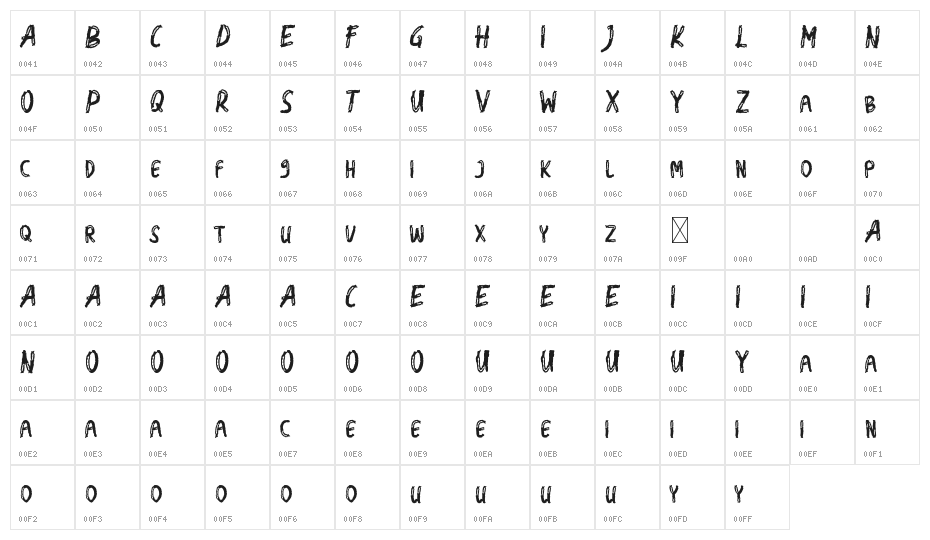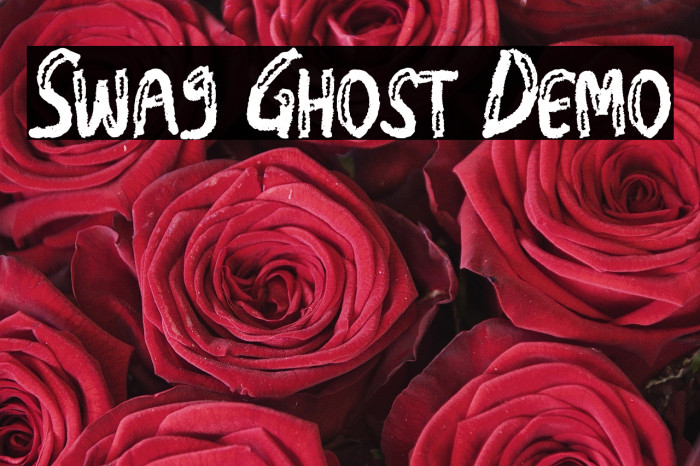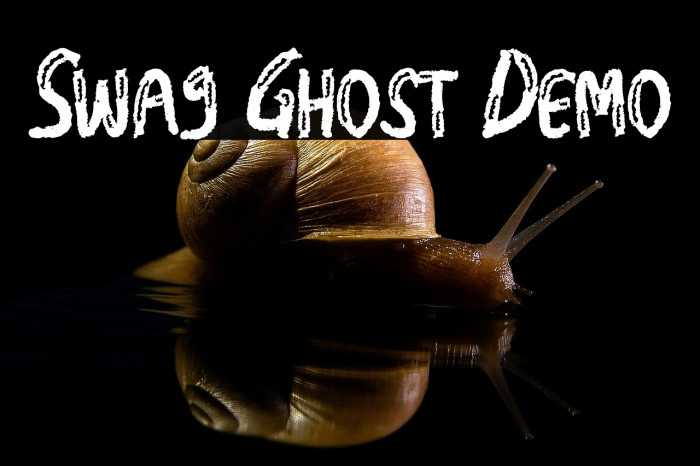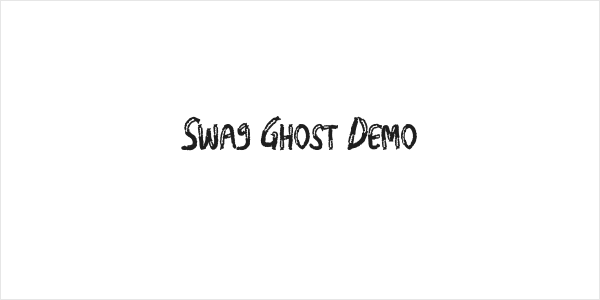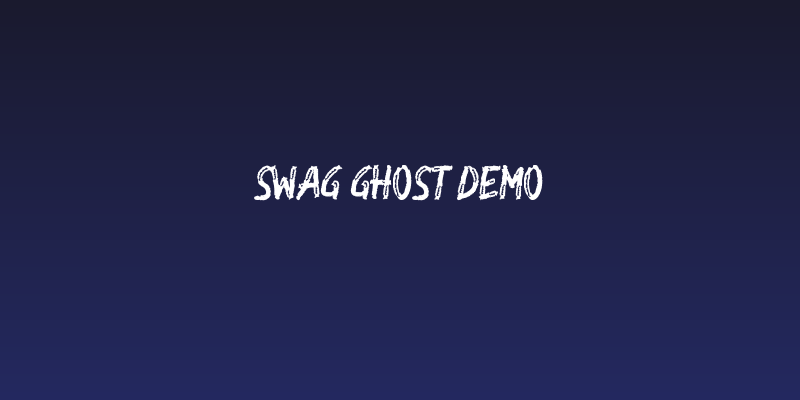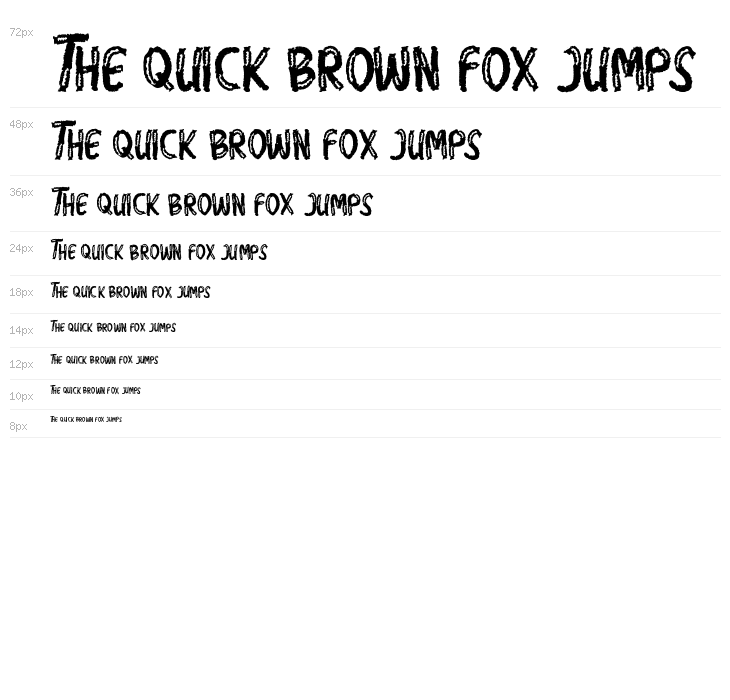
Swag Ghost Demo Font
Swag Ghost Demo Description
This font features a bold, textured style with a hand-drawn appearance, giving it a rugged and dynamic look. The letters are characterized by uneven strokes and a distressed effect, which adds a sense of movement and energy. The uppercase letters are prominent and eye-catching, making them suitable for impactful designs. The font's unique style is reminiscent of graffiti or street art, with a playful yet edgy vibe. It maintains a consistent height across characters, ensuring readability while still offering a creative flair. The rough edges and irregularities in the letterforms contribute to its distinctive personality, making it ideal for projects that require a bold statement.
| Overall Style | Modern, Edgy |
| Proposed Projects | Perfect for posters, album covers, streetwear branding, and edgy graphic designs. |